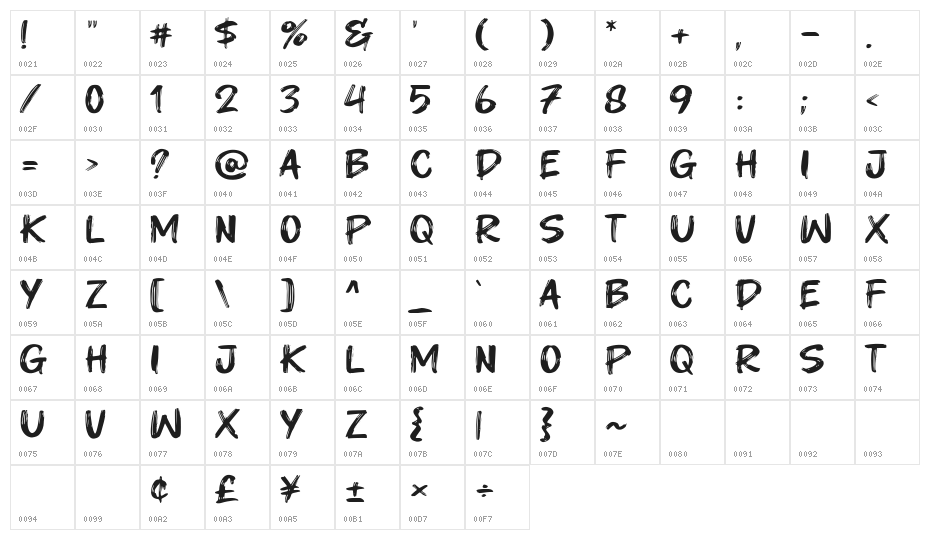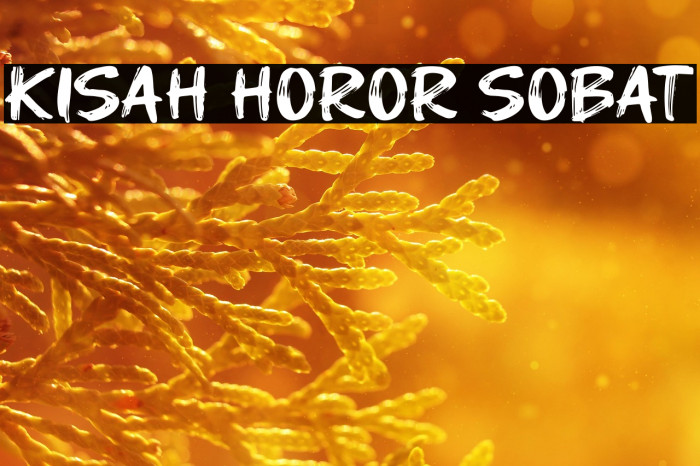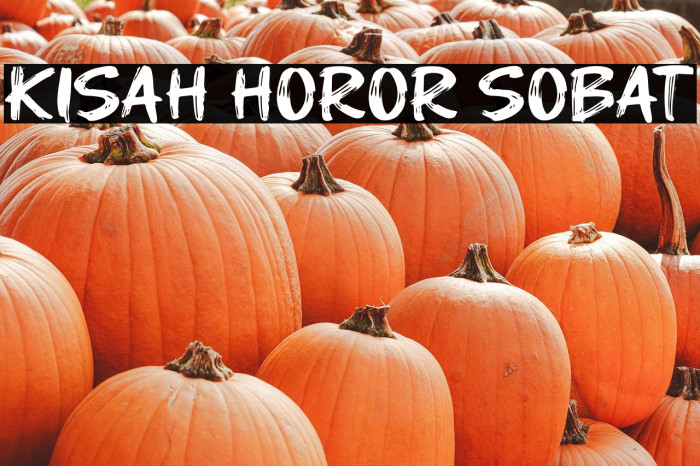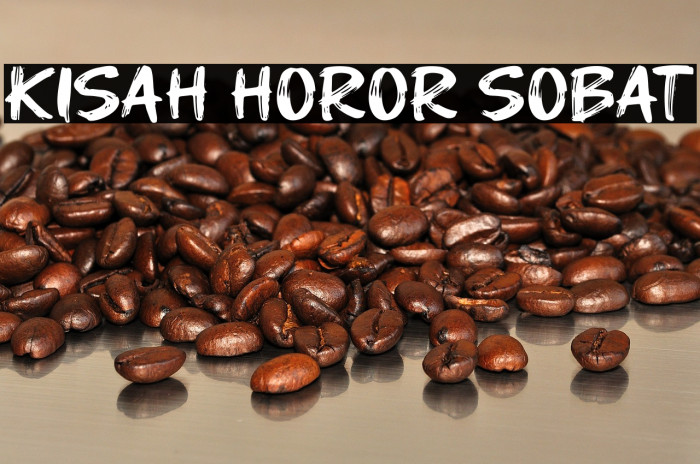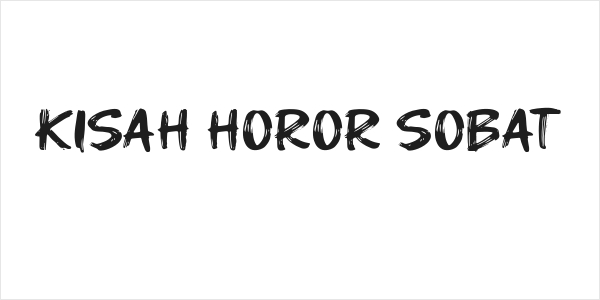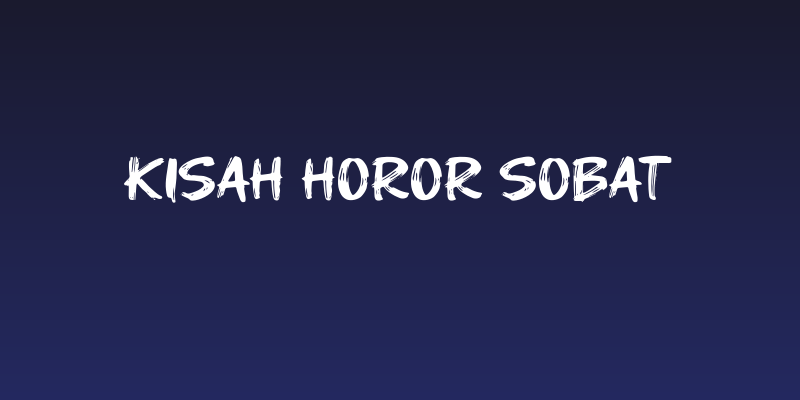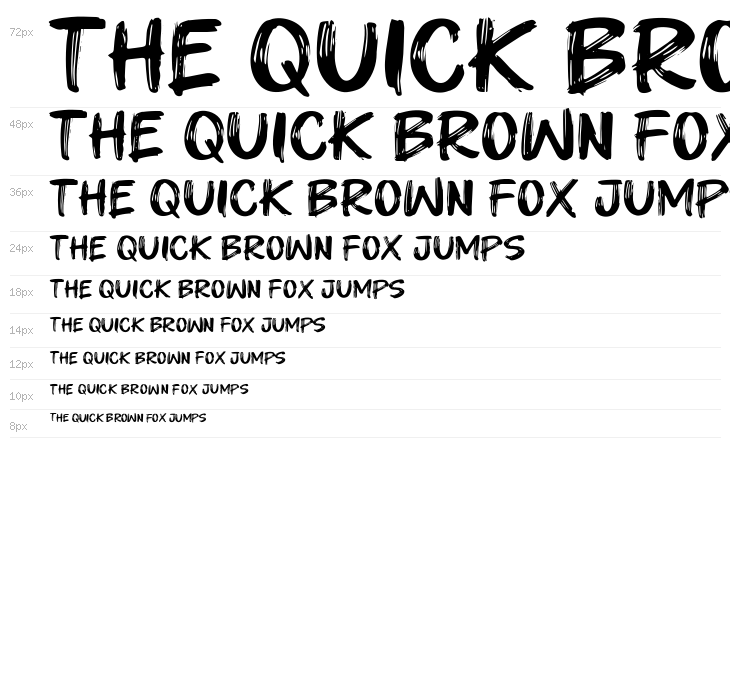
Kisah Horor Sobat Font
Kisah Horor Sobat Description
This font features a bold, brushstroke style that exudes energy and dynamism. Each character is crafted with a sense of movement, as if painted with a swift, confident hand. The strokes are thick and uneven, giving the font a raw, artistic feel. The uppercase and lowercase letters maintain a consistent style, with a slightly condensed form that enhances readability while preserving its artistic flair. Numbers and special characters are equally expressive, making this font versatile for various creative applications.
| Overall Style | Modern, Artistic |
| Proposed Projects | Ideal for posters, album covers, branding projects, and any design requiring a bold, artistic touch. |